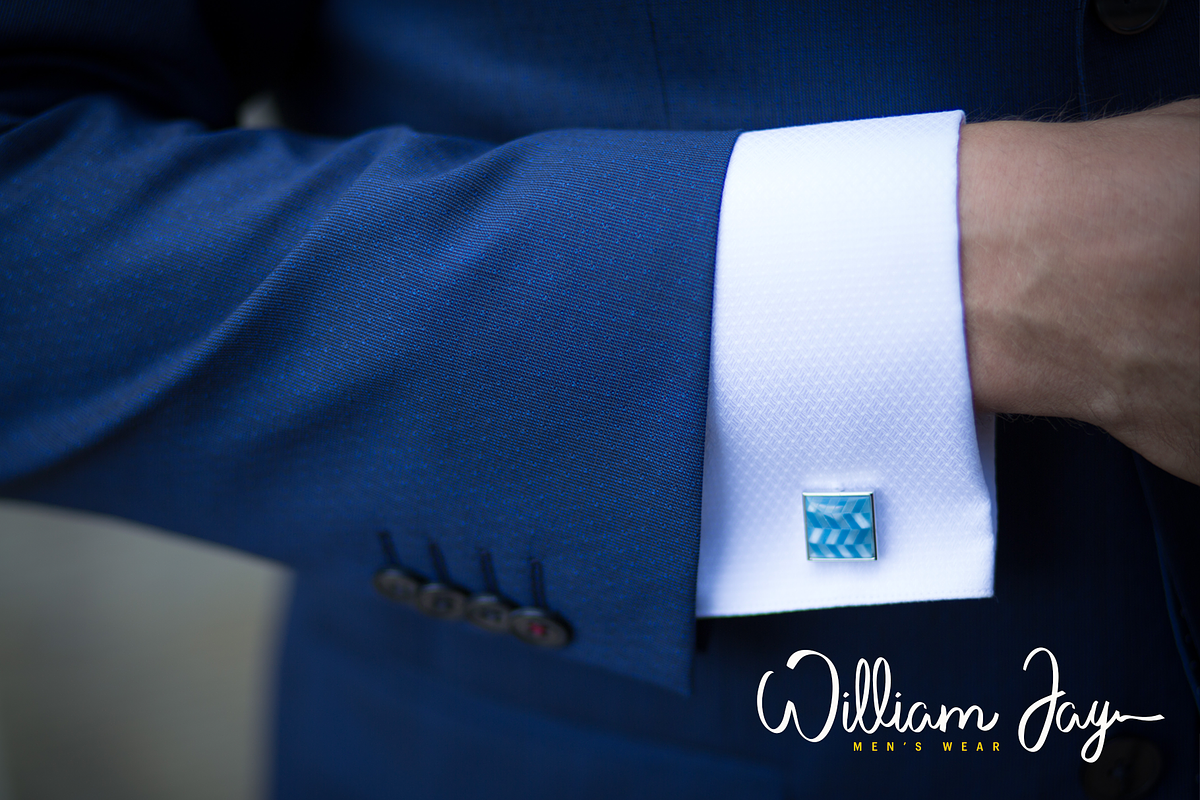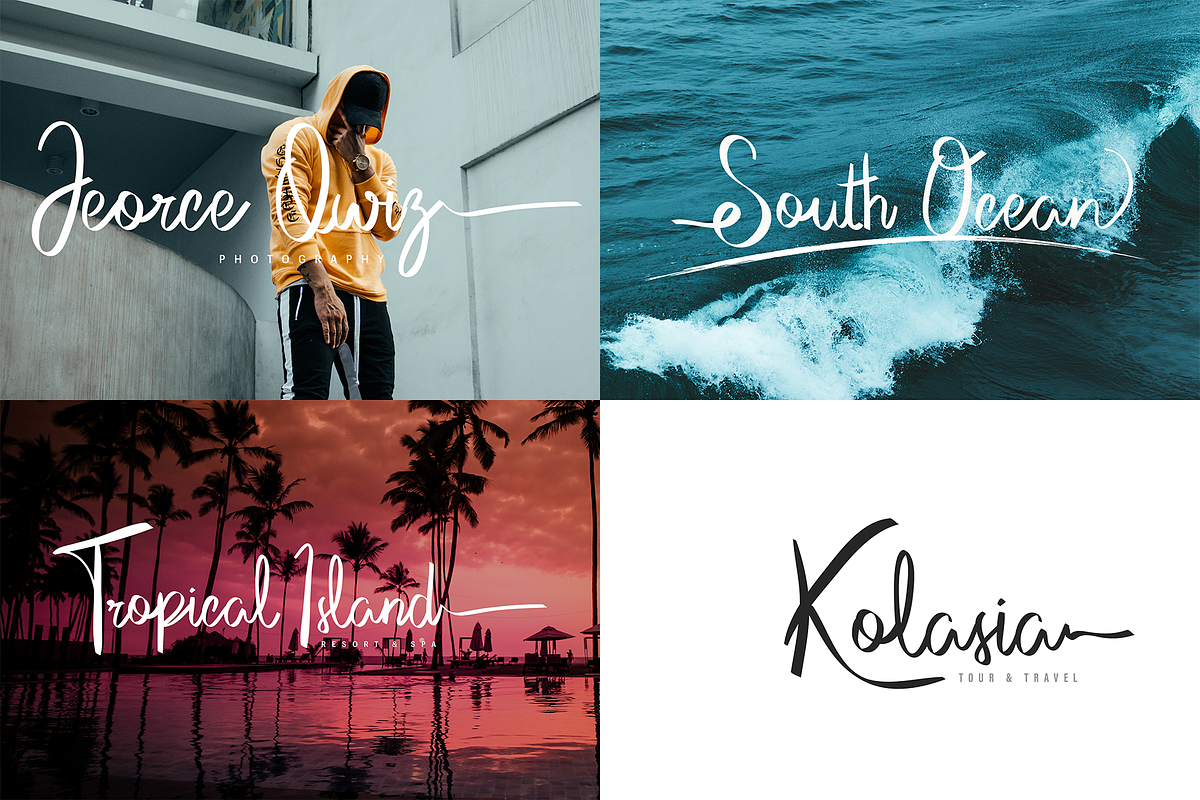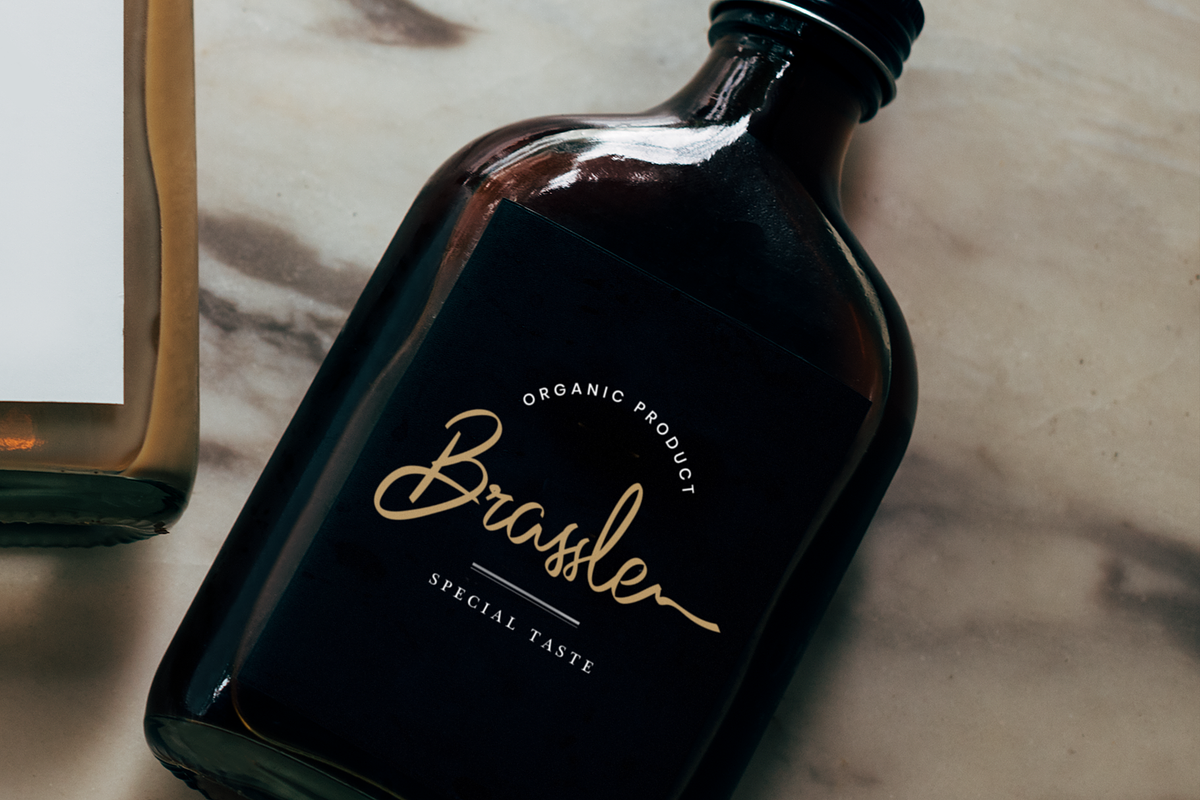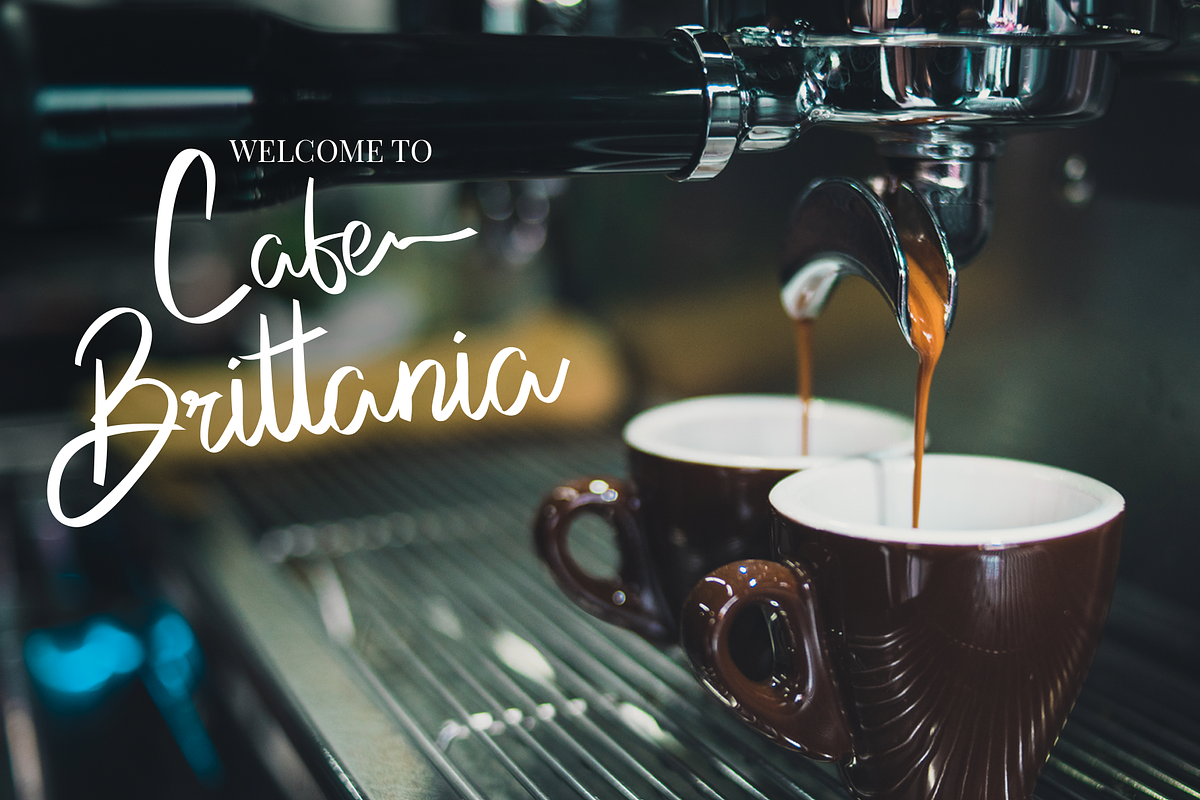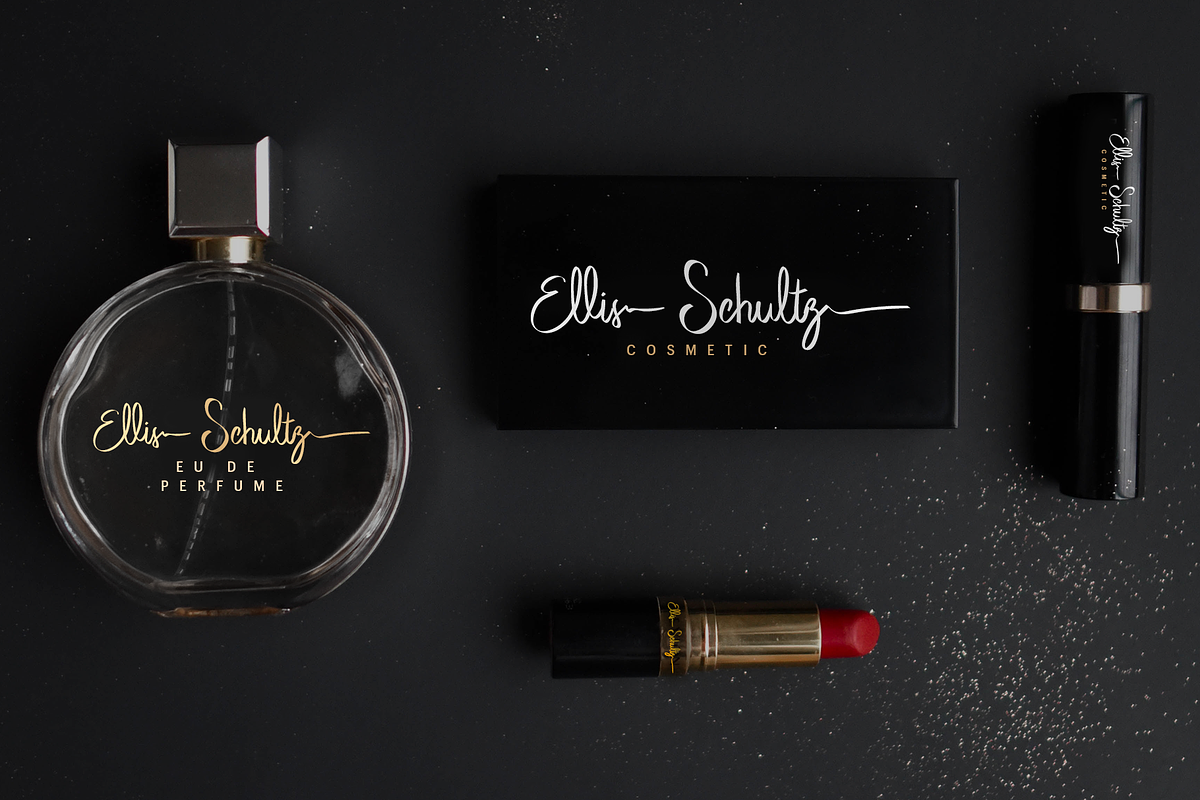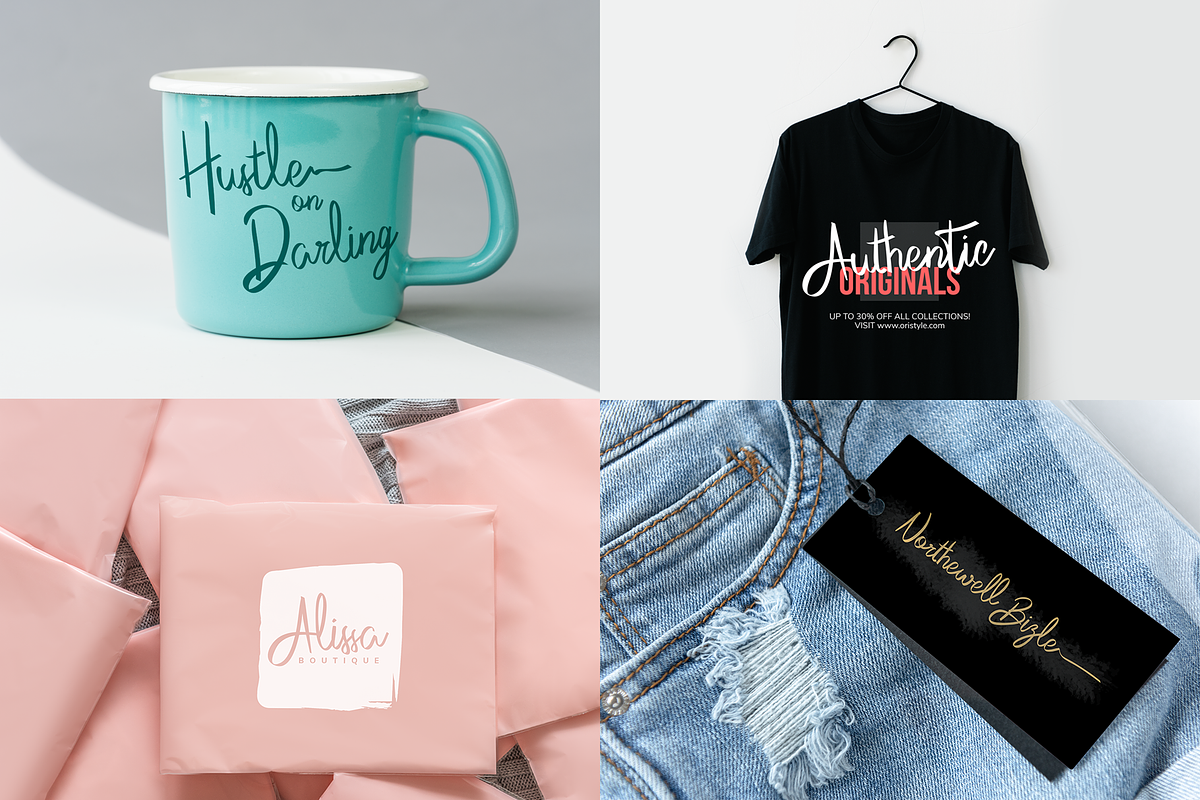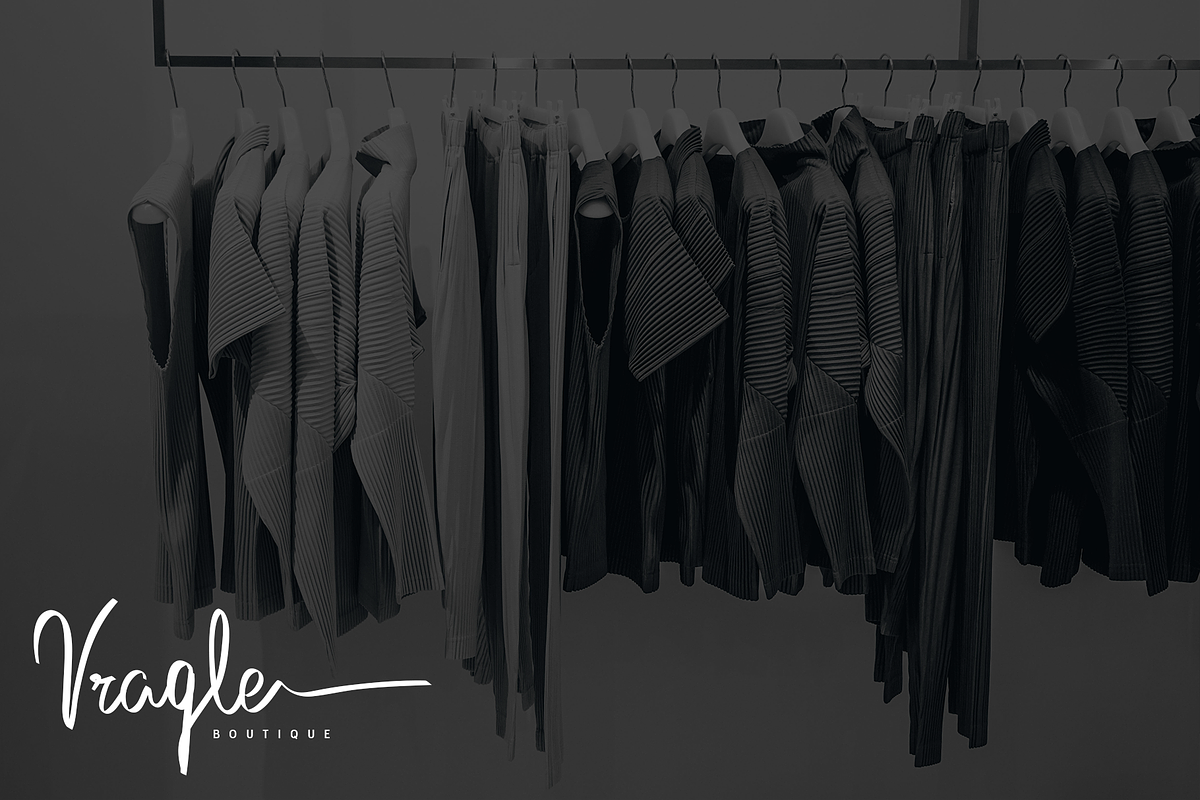
Casstino Handwritten Font
Meet Casstino, This is handwritten script font with sophisticated style. With extra attention to quick strokes and sharp details and give off a real personal touch to your projects
Casstino is perfect used for photography, watermark, social media posts, advertisements, logos & branding, invitation, product designs, label, stationery, wedding designs, product packaging, special events or anything that need handwriting tast.
Casstino (OTF/TTF) - Handwritten containing upper & lowercase characters, full set of punctuation and numerals, with opentype features with stylistic alternates and ligatures.
Casstino-Alternative (OTF/TTF) A bonus set of 26 swashes. Simply select this font and type any lowercase a-z character to create one of the bonus elements.
Ton of glyphs (include Uppercase, Lowercase, Numerals & Punctuations)